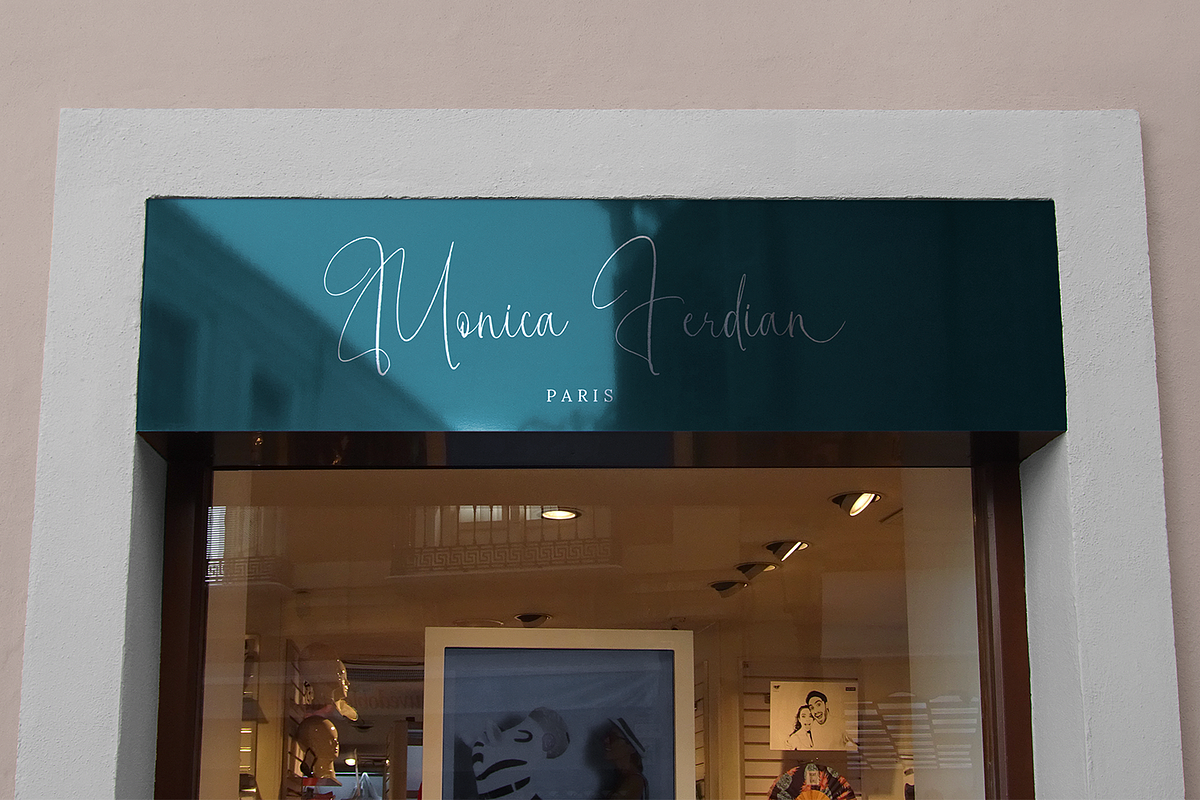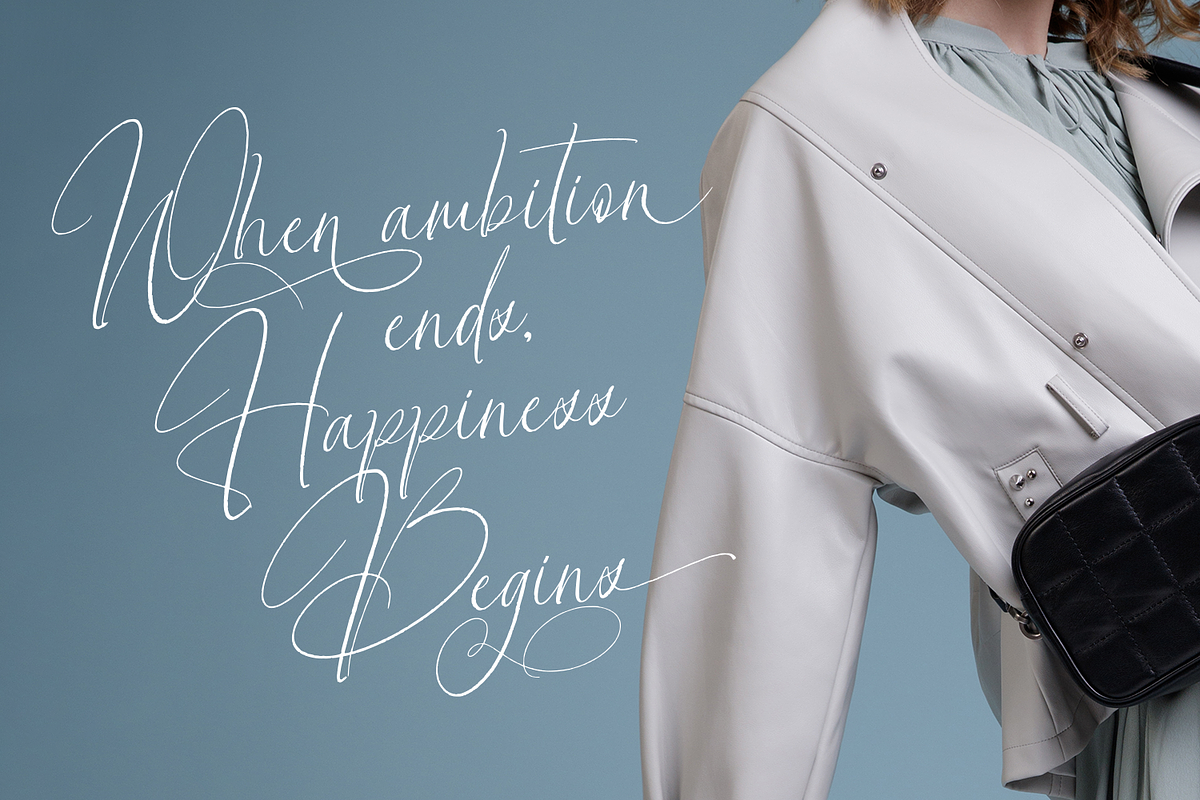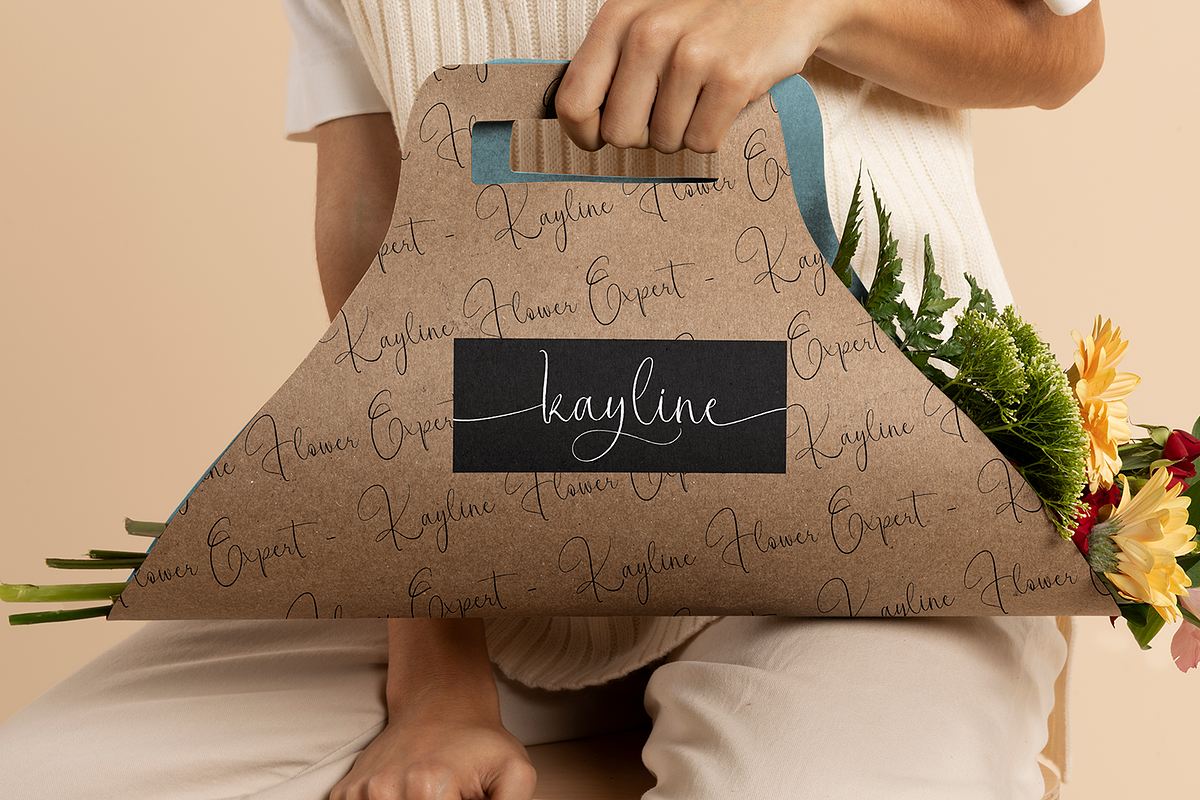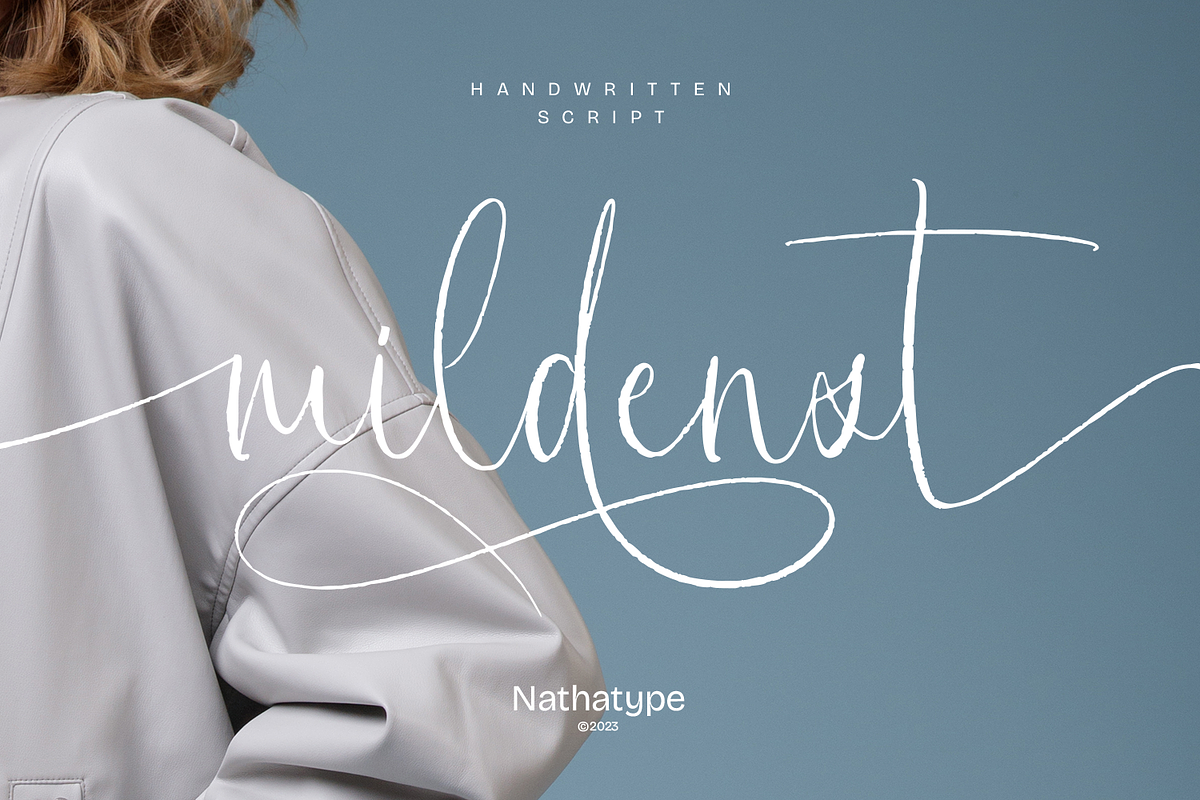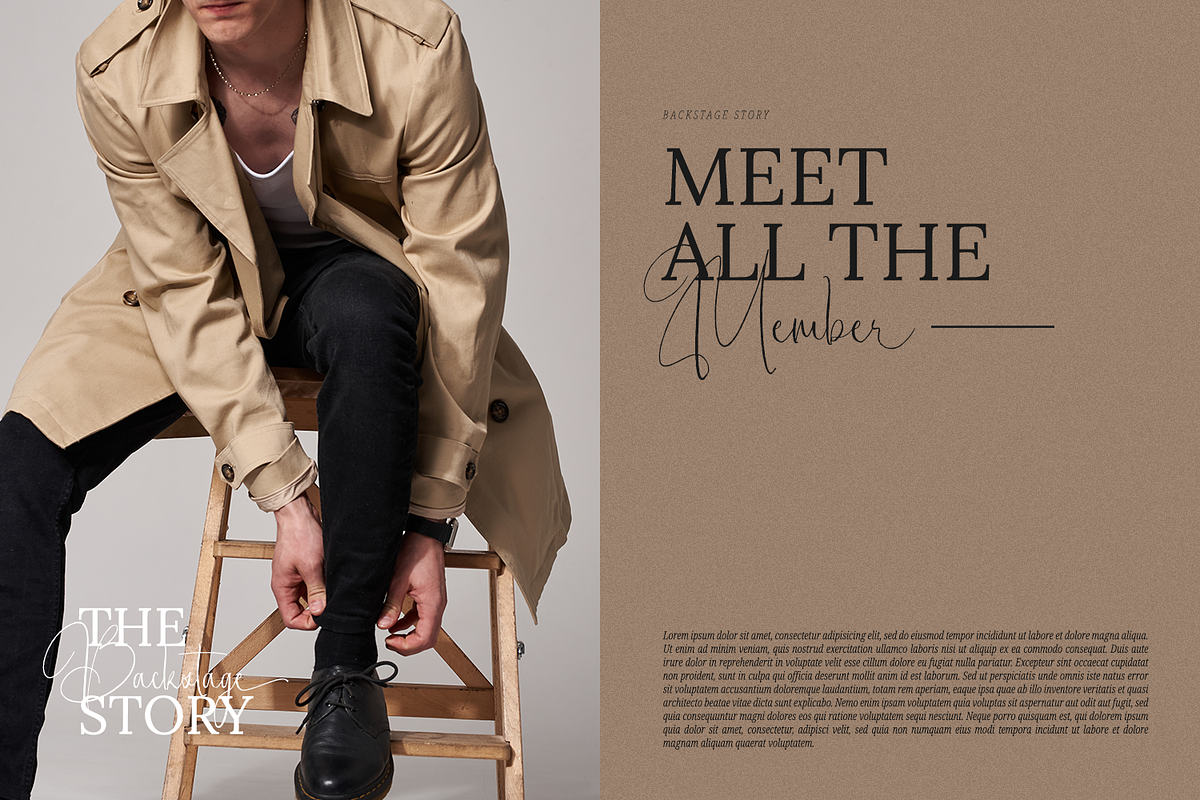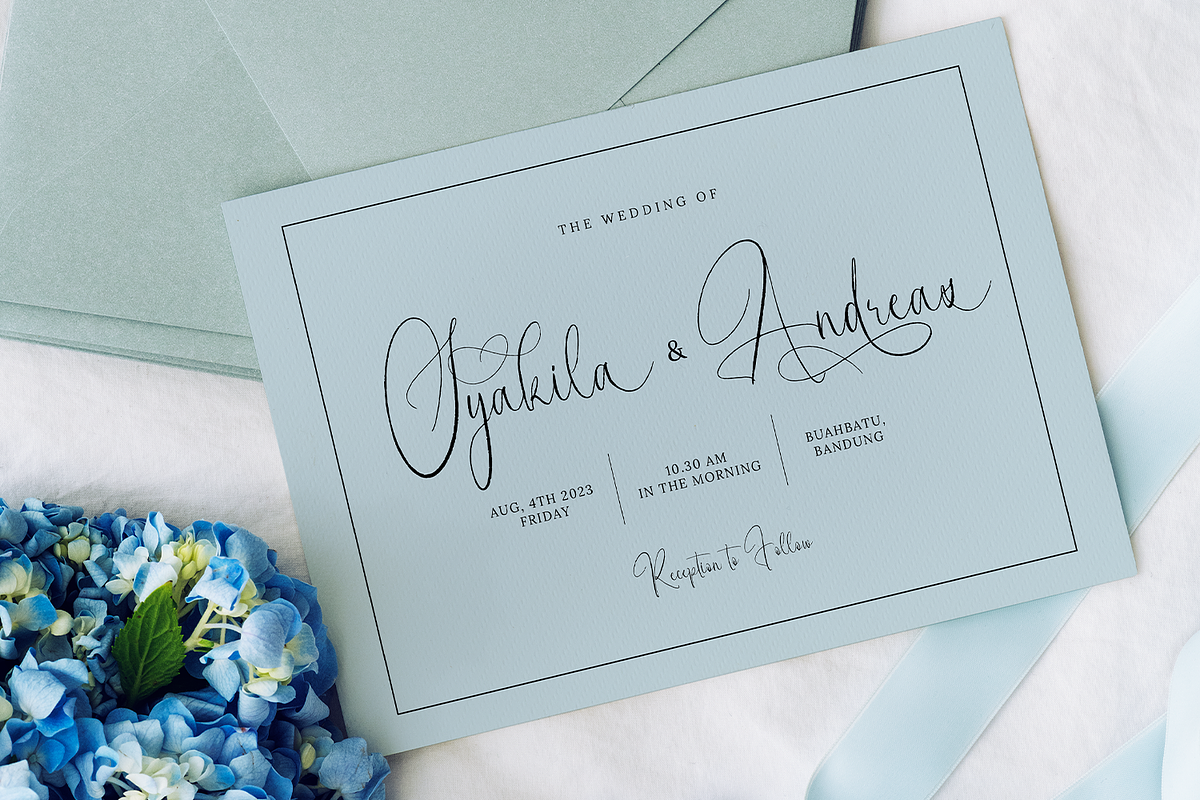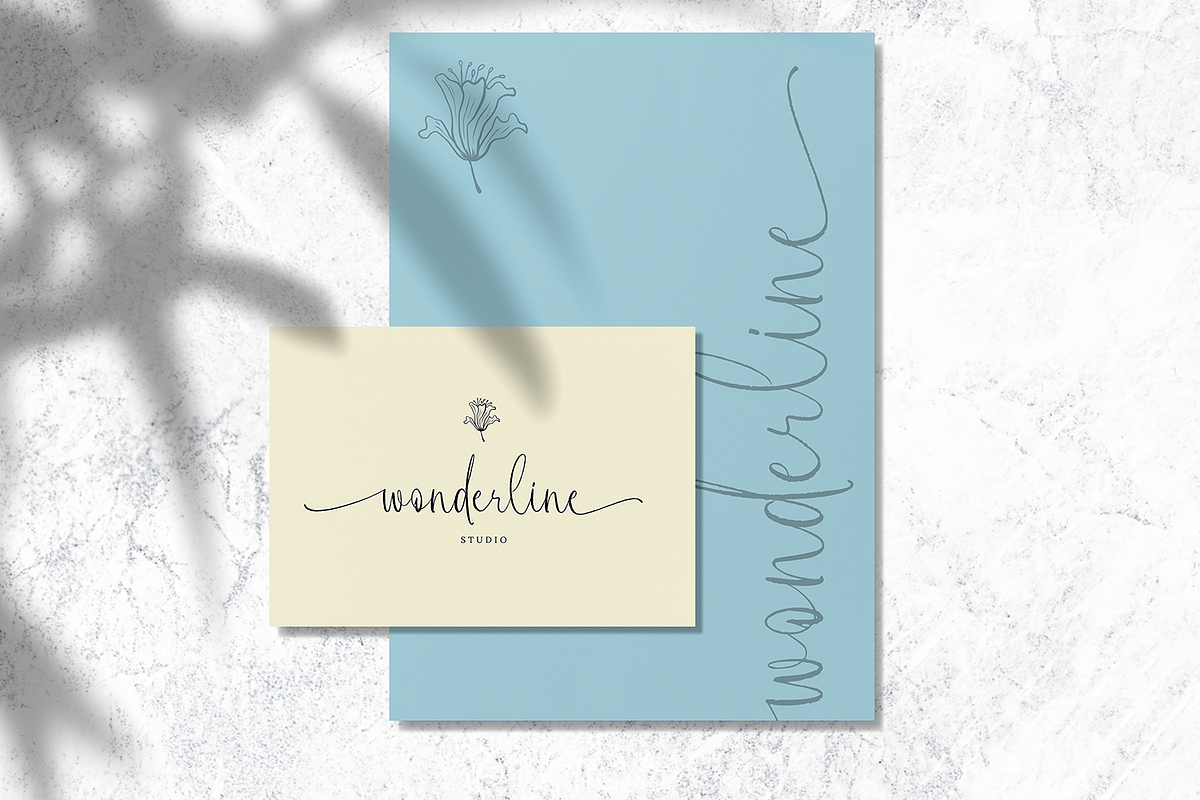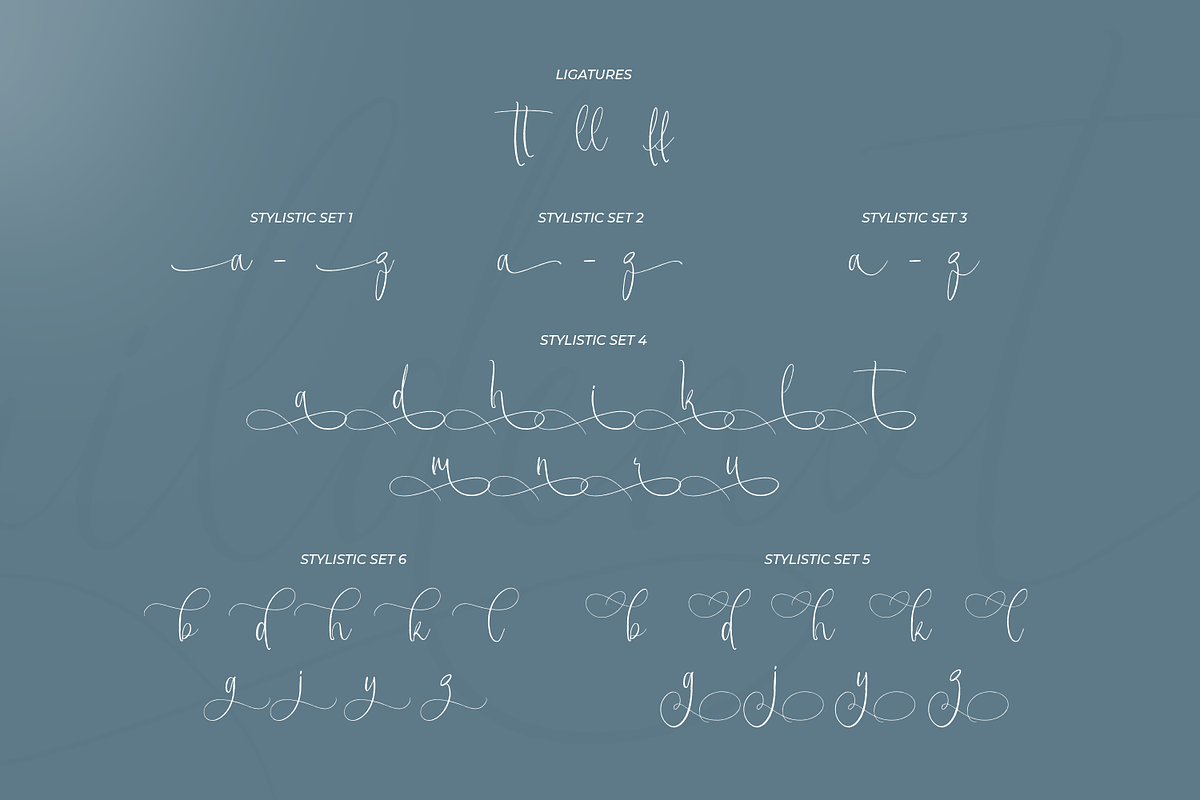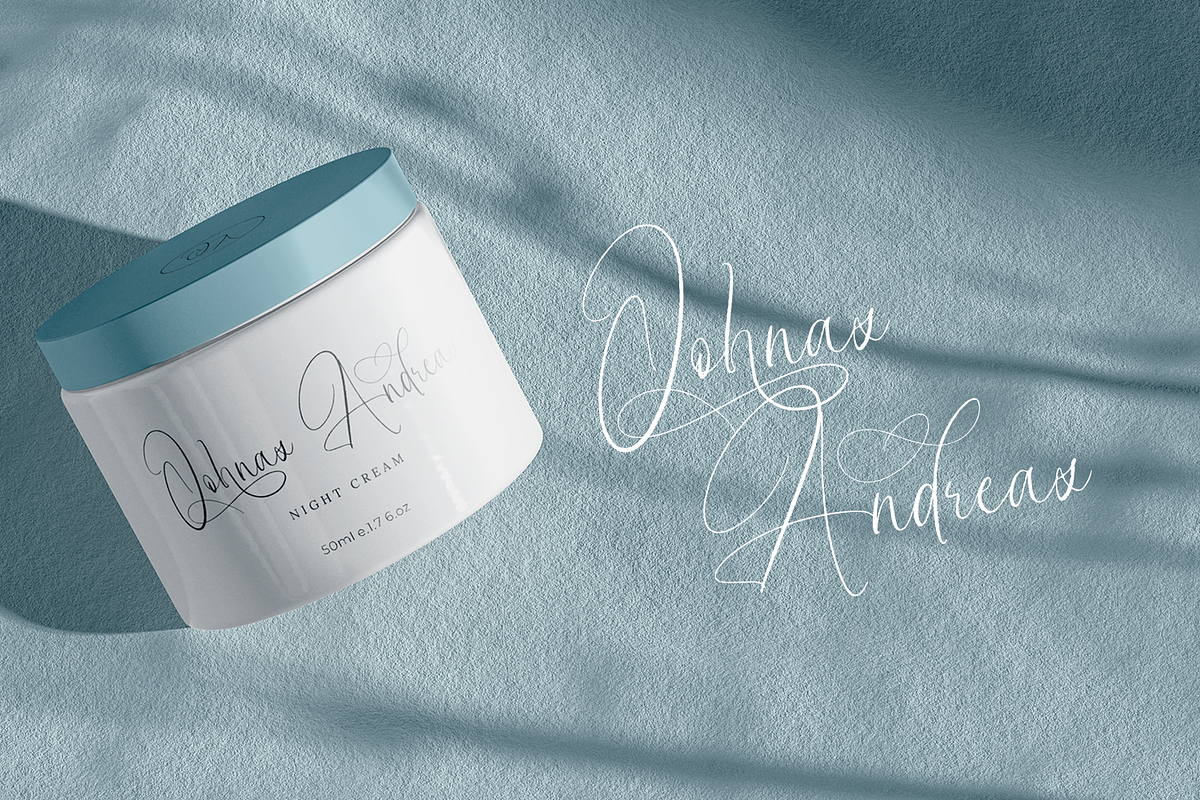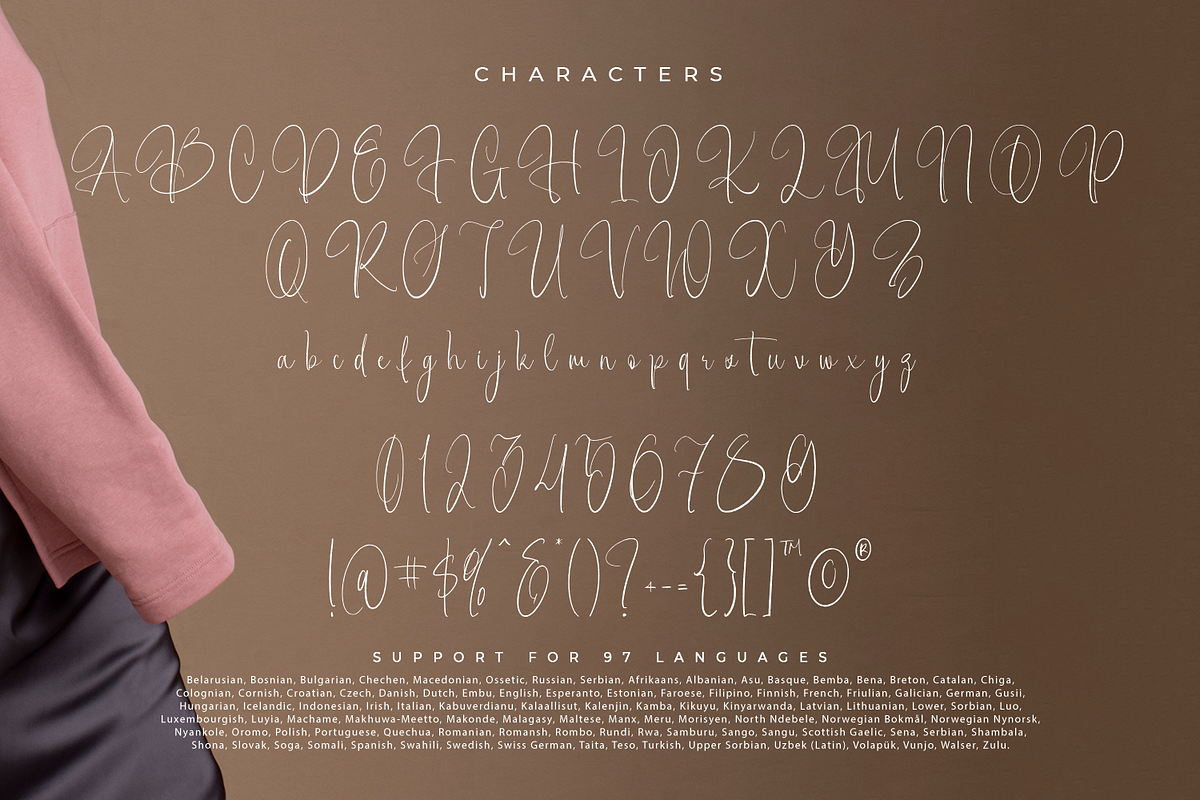
Mildenst
Mildenst is a captivating script font that embodies the essence of flowing cursive handwriting. The variation in line weight, combined with the delicate curves and loops, imbues the font with a natural appearance. The swinging letter details evoke the mesmerizing rhythm of handwritten strokes. On the other hand, the subtle brush strokes add depth and character, providing a tactile quality that hints at the intimacy of pen on paper. Mildenst's captivating letterforms gracefully flow from one character to the next, forming a harmonious dance of words. The balanced spacing ensures readability while preserving the authentic feel of cursive handwriting. You can also enjoy the available features here.
- Stylistic Sets
Mildenst fits in headlines, logos, posters, flyers, invitations, name cards, branding materials, print media, editorial layouts, and many more. Find out more ways to use this font by taking a look at the font preview.